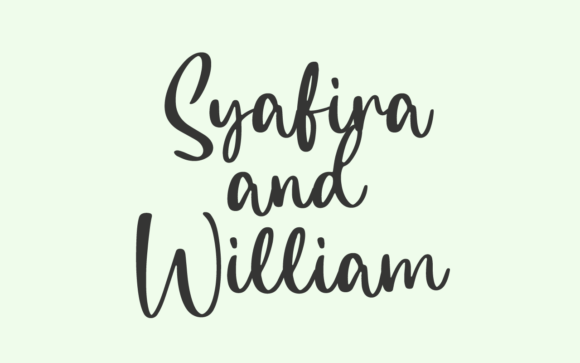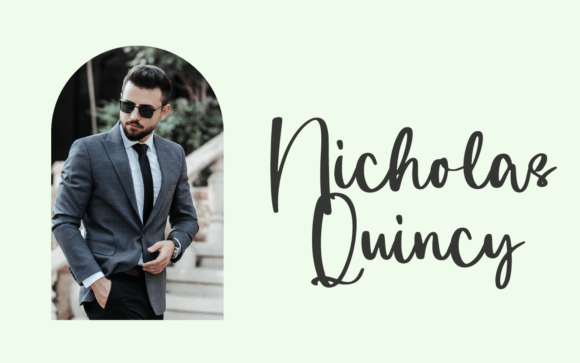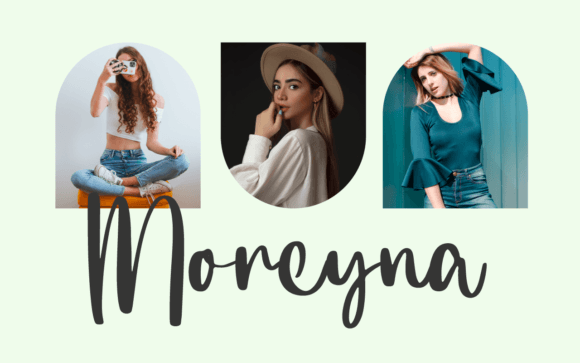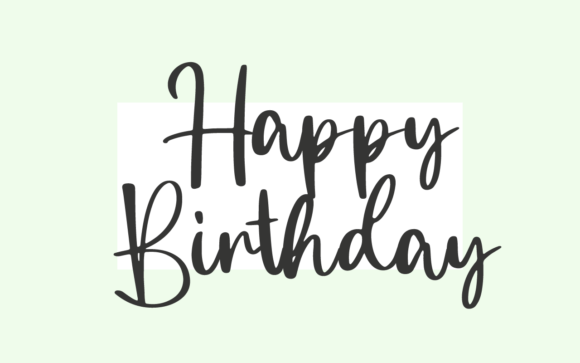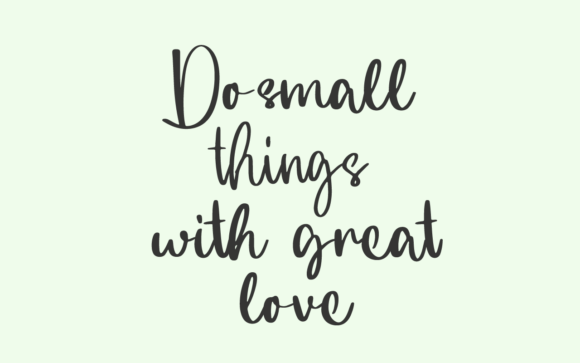
Unveiling the Elegance of Ariana Giana Font
As a designer, there’s nothing quite like the thrill of finding the perfect font to bring your vision to life. You’ve spent hours poring over sketches, experimenting with colors, and refining your concept – and then, it hits you: the perfect font to elevate your design to the next level. For many of us, that font is the Ariana Giana Font, a refined and sophisticated script font that exudes elegance and style.
With its sweeping curves and delicate flourishes, the Ariana Giana Font is the epitome of high-end design. Whether you’re creating a luxurious brand identity, a wedding invitation, or a high-end marketing campaign, this font is sure to make a statement. And for designers, that’s what makes it so valuable – its ability to add a touch of sophistication and refinement to even the most complex designs.
Ariana Giana Font Key Features
- Font Family: Ariana Giana, a beautiful script font designed for elegant and sophisticated typography.
- Size: The font contains 4 weights: Light, Regular, Medium, and Bold, offering flexibility in design and layout.
- Unique Characteristics: Hand-drawn and digitally enhanced, Ariana Giana features a unique blend of elegance and playfulness, making it perfect for creative and design-driven applications.
- Character Count: The font contains a wide range of characters, including Latin, Cyrillic, and Greek alphabets, as well as punctuation and symbols.
Ariana Giana Font Review
I’ve had the chance to work with the Ariana Giana Font, and here’s my honest take on it.
- Unique blend of elegance and playfulness: Ariana Giana Font has a distinct style that’s hard to find elsewhere.
- High legibility: The font is easy to read, even at smaller sizes.
- Extensive character set: It includes a wide range of languages and special characters.
- Not suitable for all projects: Ariana Giana Font might not be the best choice for corporate or formal designs due to its playful nature.
- Requires careful kerning: The font’s unique style can sometimes lead to awkward spacing between letters.
Ariana Giana Font is a great addition to any designer’s toolkit, especially for projects that need a touch of whimsy. While it may not be the best fit for every project, it’s definitely worth considering for designs that require a bit of personality.
Getting the Most Out of Ariana Giana Font
To get the most out of Ariana Giana Font, use it for:
1. Creative projects that require a unique and elegant touch.
2. Branding and marketing materials that need a sophisticated look.
3. Designs that require a high level of readability and sophistication.
Ariana Giana Font is commonly used for:
Alternatives to Ariana Giana Font
Great Vibes is a modern, elegant script font that is perfect for creating a sophisticated and luxurious feel. It features a fluid, cursive design with subtle flair and elegance. Great Vibes is ideal for use in logos, branding, and packaging where a high-end feel is desired.
Compared to Ariana Giana Font, Great Vibes has a more refined and polished look, making it suitable for high-end designs. It also features a more subtle and elegant feel, which is perfect for designs where a touch of sophistication is required.
Compared to Ariana Giana Font, Lato has a more modern and minimalist look, making it suitable for digital designs. It also features a more straightforward and easy-to-read feel, which is perfect for designs where clarity is required.